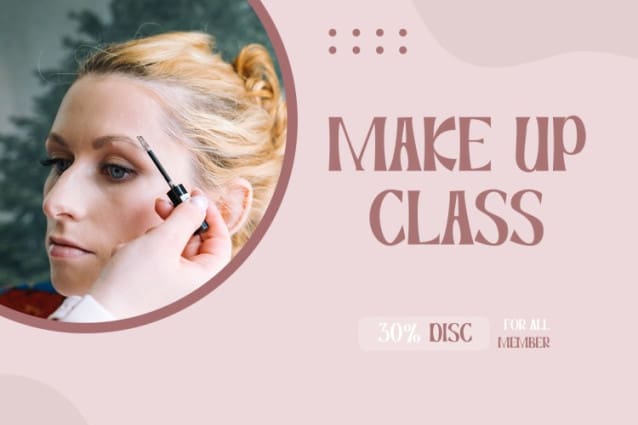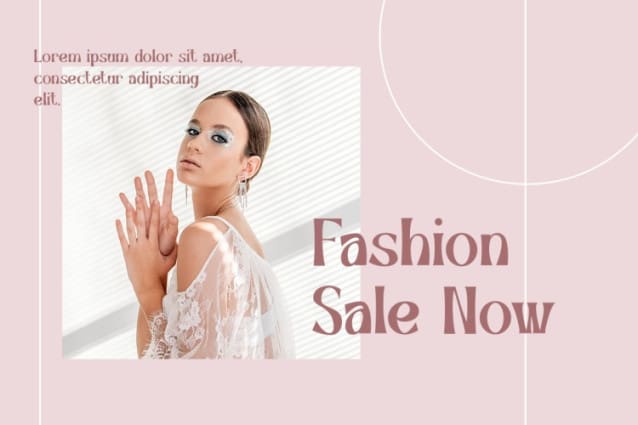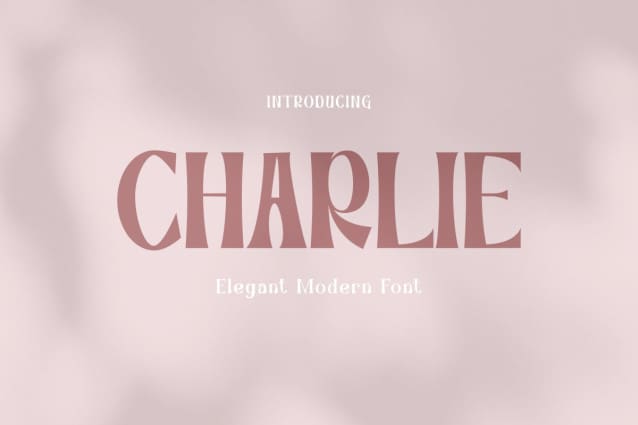
Charlie Typeface
Charlie Typeface, a charming decorative font inspired by playful handwriting. Its whimsical script evokes nostalgia for school days and heartfelt communications, making it ideal for adding a touch of personality to your creative projects.
Whether you’re crafting heartwarming invitations, designing eye-catching posters, or adding a unique twist to your brand identity, CHARLIE’s versatility shines through. From playful greetings to impactful headlines, let its expressive strokes captivate your audience and infuse your messages with a sense of genuine connection.